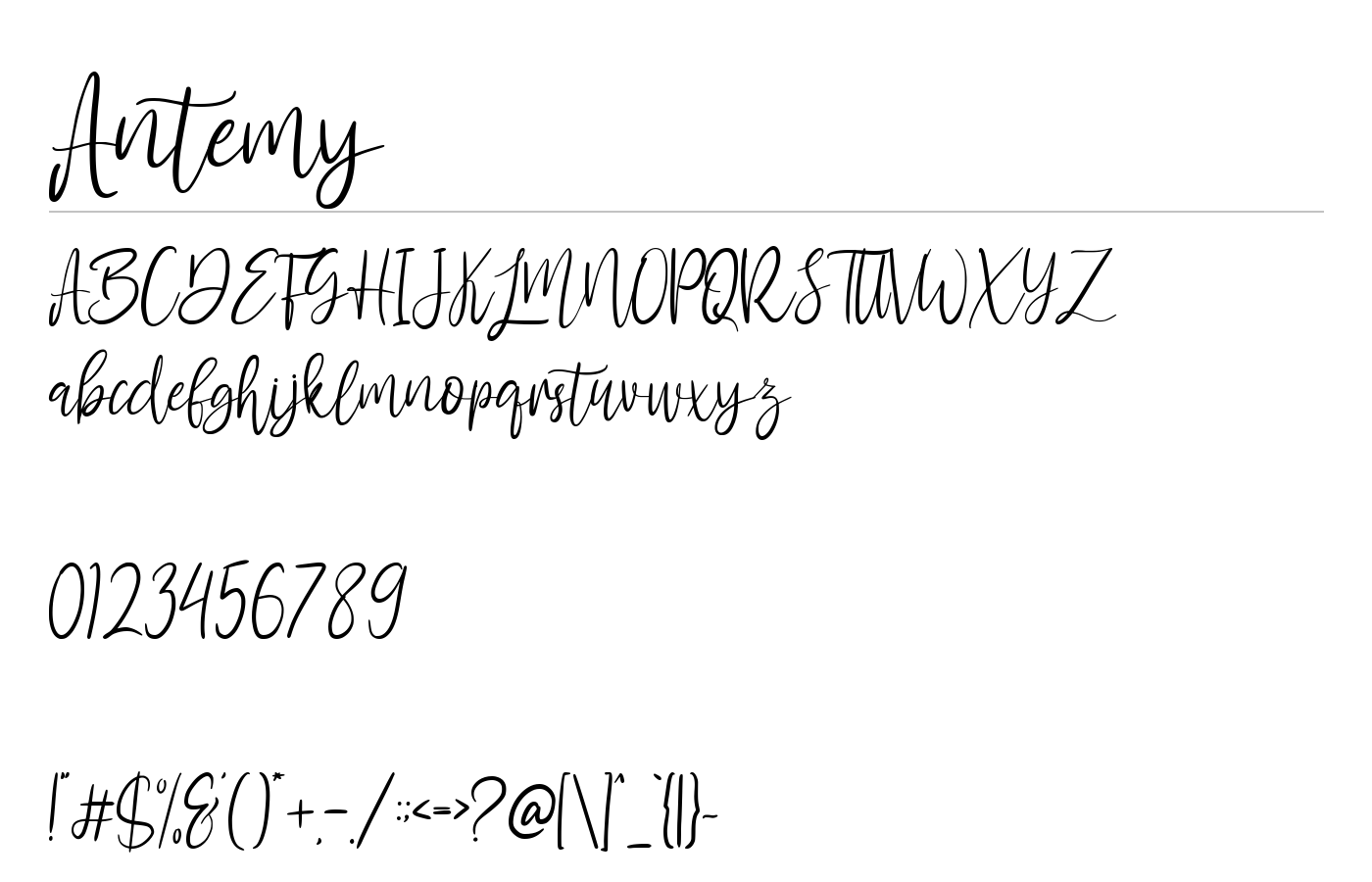
Antemy is a delicate, handwritten script font with a light, airy feel and graceful, flowing lines. Its thin strokes and elegant cursive style make it perfect for adding a personal, sophisticated touch to invitations, branding, and creative projects that want to convey warmth and charm. This font shines in contexts where a refined yet approachable handwritten look is desired.
Antemy Font
About Antemy Font
| Font family | Antemy Font |
| Designer | Virgiawan Listanto. 2020 |